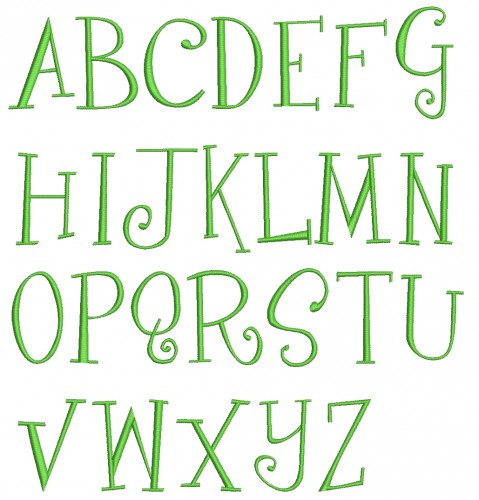
No 92 Fun Font Machine Embroidery Designs 1 inch high
This set contains 52 designs:
26 Uppercase Letters approx. 1" high
26 Lowercase Letters between .5" and 1.2" high
Perfect for ribbons & bows!
Designed to combine and spell names